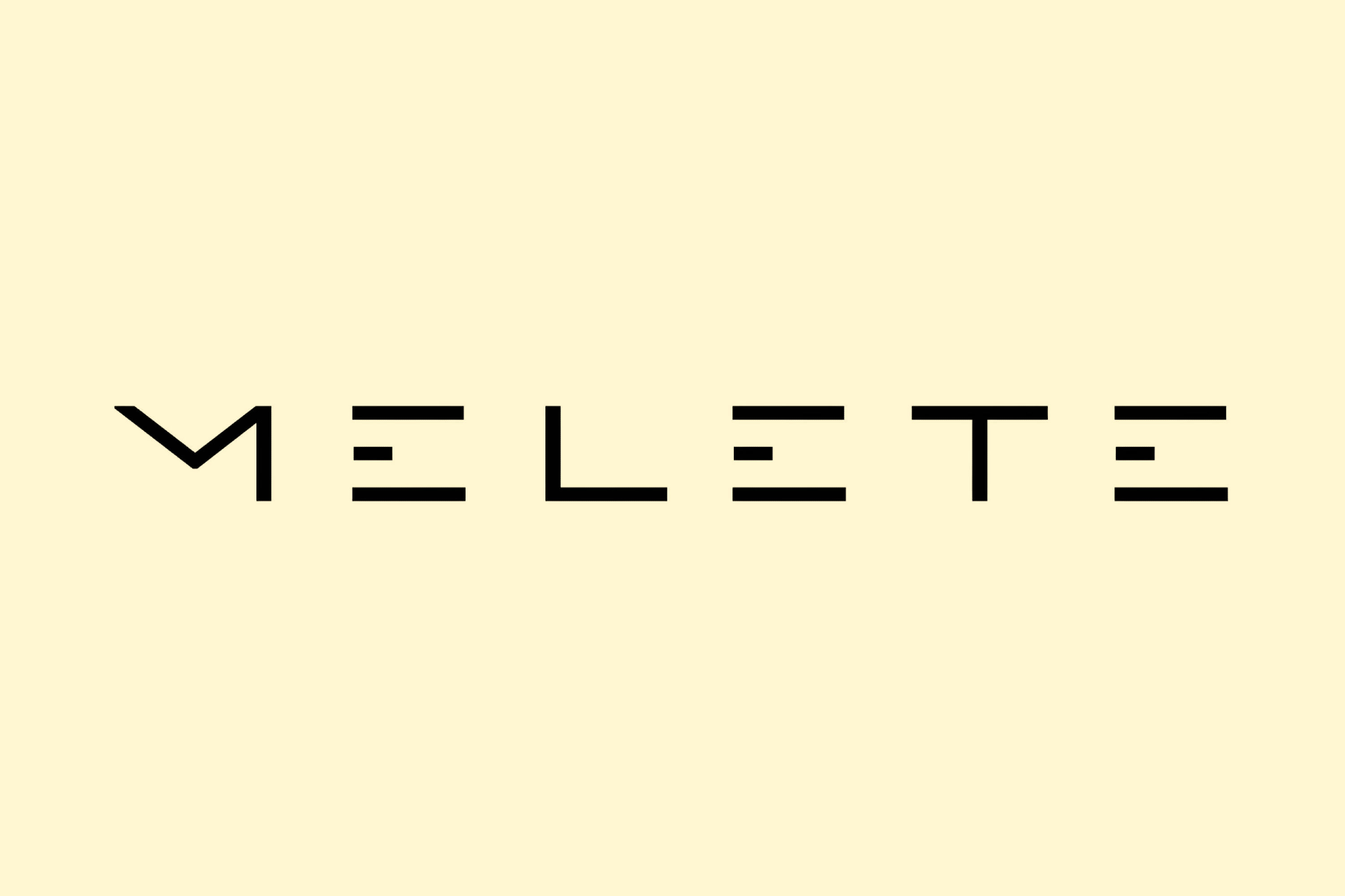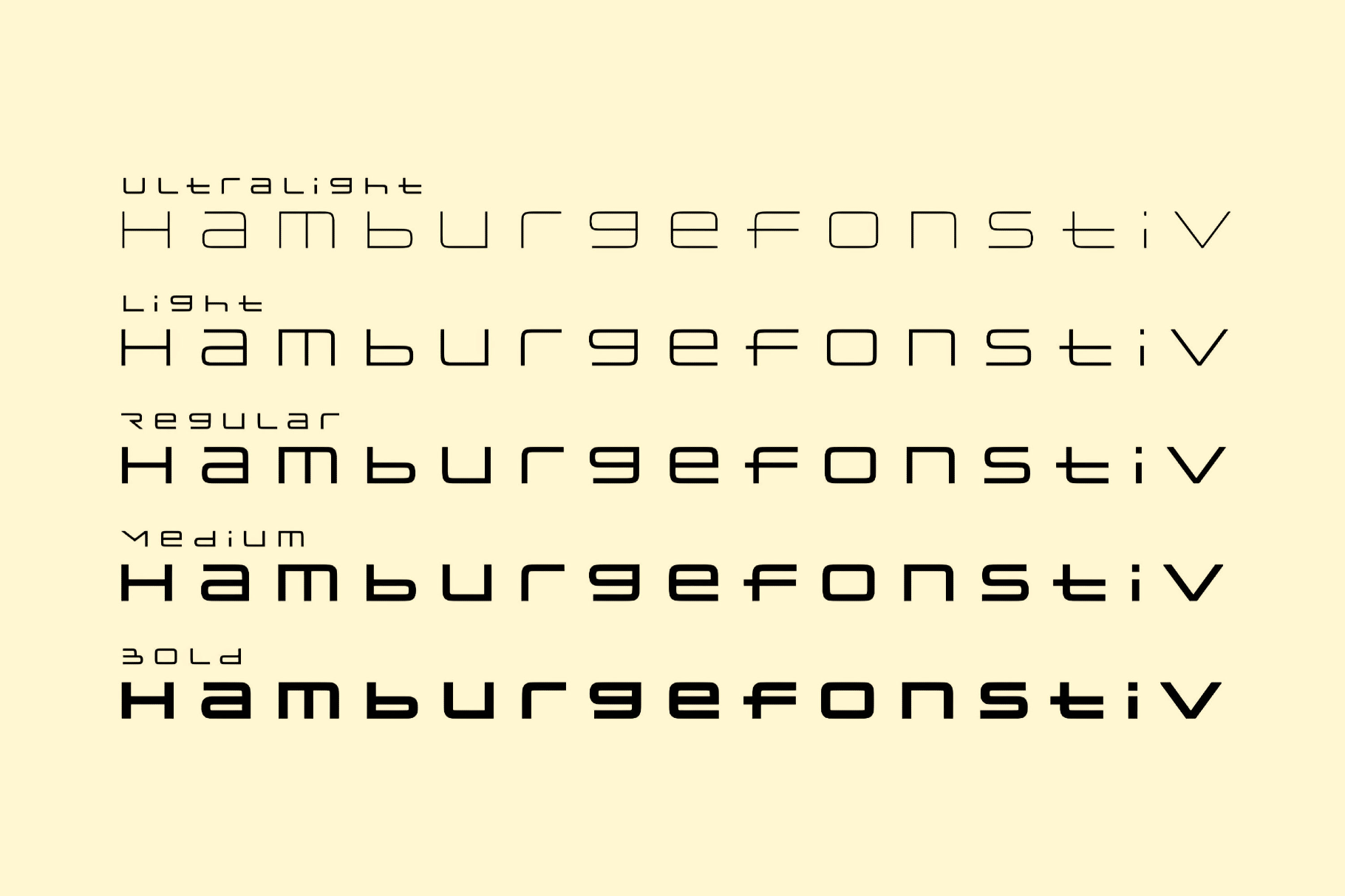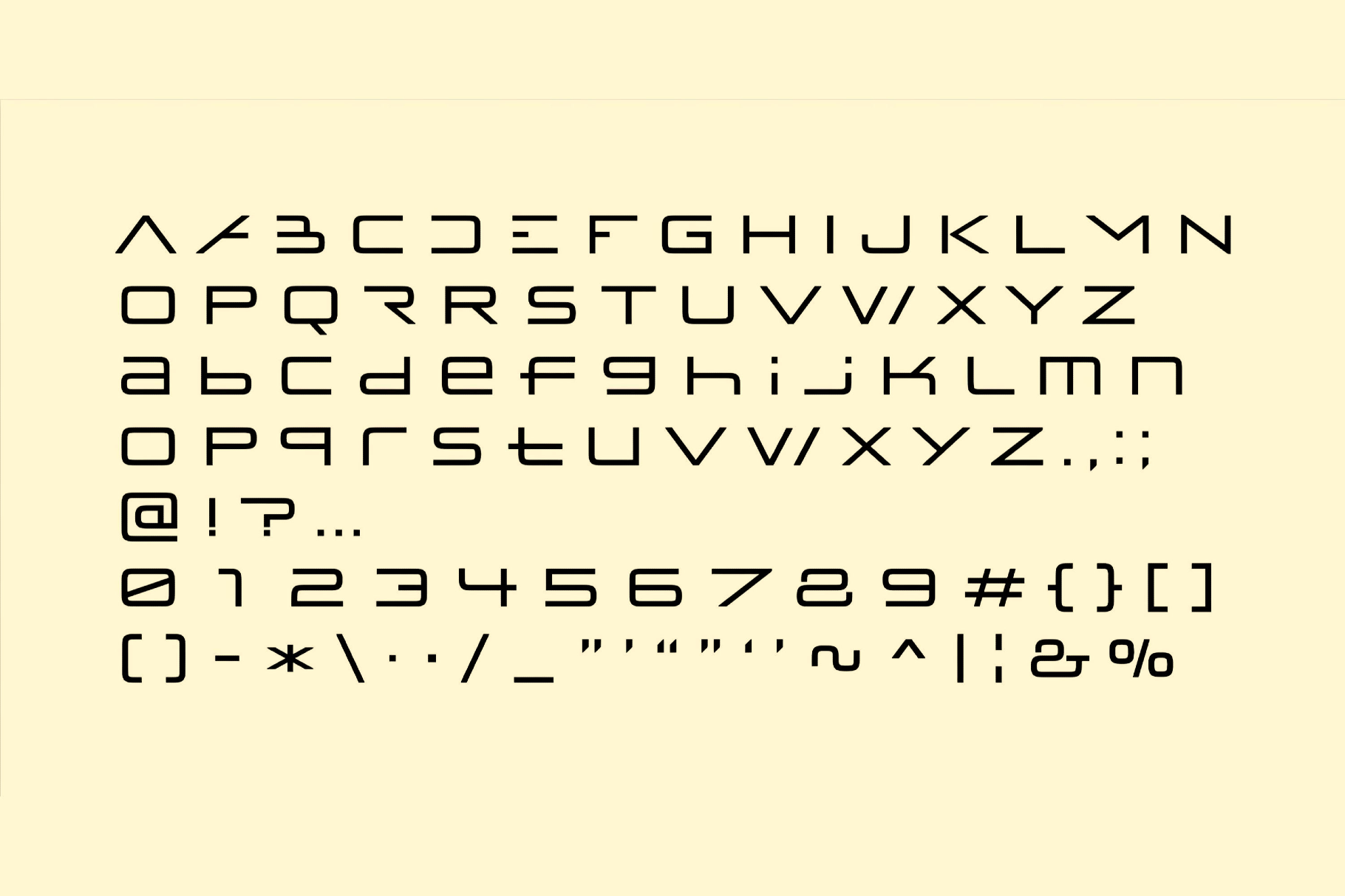
Melete Space Typeface
What gives Melete its strength is the balance between the structure of the Eurostile-era display and the suspenseful atmosphere. Its sharpened forms and generous spacing give it a very particular kind of tension: cool, restrained, and cinematic, like typography used to label a spacecraft corridor or to introduce a sci-fi film.
All that makes it effective for poster headlines, film graphics, album covers, game menus, tech identities, interface concepts, brand marks, exhibition visuals, and editorial openers.
- 5 styles: Bold, Light, Medium, Regular, and Ultralight;
- uppercase and lowercase letters;
- numbers, punctuation, and symbols;
- multilingual support across a basic Latin script.